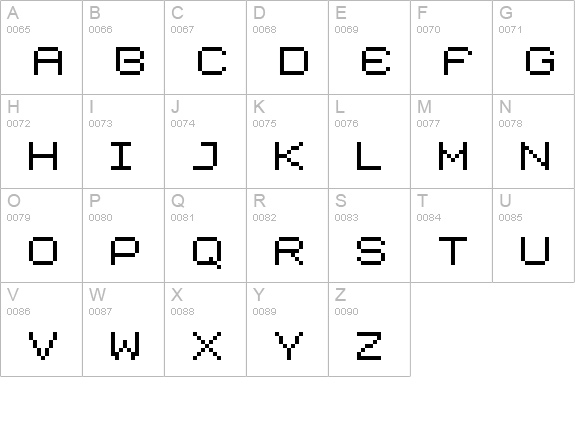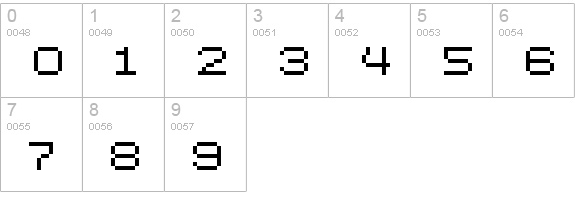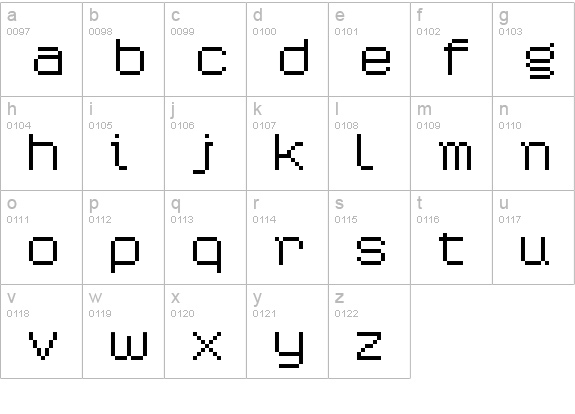
CALIPER-999XX font is a versatile and modern typeface that is sure to make your designs stand out. With its sleek lines and contemporary feel, this font is perfect for a wide range of projects, from branding to editorial design. The CALIPER-999XX font is incredibly easy to read, making it ideal for both print and digital applications. The best part? This font is completely free to download at FontsMarket.com. That's right - you can get your hands on this stylish and professional font without spending a dime. Whether you're a designer looking to add a fresh touch to your work or a business owner in need of a new font for your branding, CALIPER-999XX is the perfect choice. Download it today and see the difference it can make in your projects.